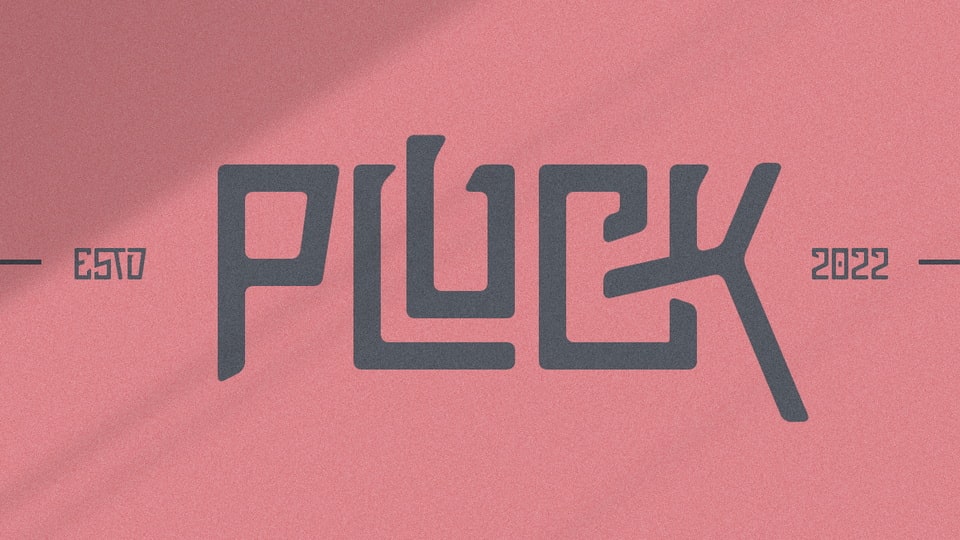
Download Pluck font, an attractive display typeface that created elegant and modern look. To pick Pluck font is a solution for your awesome graphic projects.